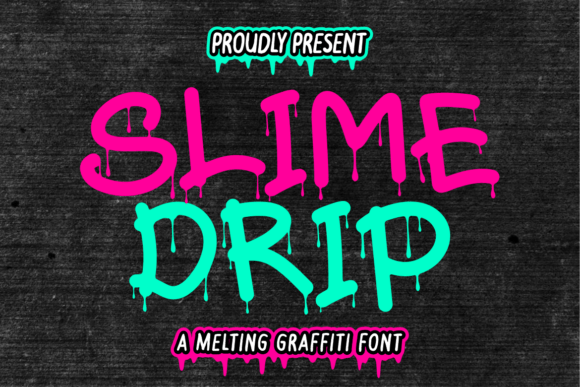
Introducing Slime Drip Font: The Ultimate Urban Graffiti Experience
Are you looking for a font that embodies the spirit of urban street art? Do you want to add a touch of youthful rebellion and creativity to your designs? Look no further than Slime Drip Font, a dynamic and contemporary monoline graffiti font that drips with style and attitude.
What is Slime Drip Font?
Slime Drip Font is a unique and innovative font that captures the essence of fresh graffiti paint slowly dripping down a vibrant urban wall. Each character in the font is designed to mimic the spontaneous flow and energetic style of street art, enhanced by its bold monoline outline that ensures readability and visual impact.
The font’s fluid, melting strokes give it a distinctive look that is sure to turn heads. Whether you’re designing a logo, poster, or sticker, Slime Drip Font is the perfect choice for urban-themed branding and eye-catching visual projects.
Key Features of Slime Drip Font
- Dynamic and Contemporary Design: Slime Drip Font boasts a modern and edgy design that is perfect for urban-themed projects.
- Monoline Graffiti Style: The font’s bold monoline outline ensures readability and visual impact, making it perfect for a variety of applications.
- Fluid and Melting Strokes: The font’s fluid, melting strokes give it a distinctive look that is sure to turn heads.
- Multilingual Support: Slime Drip Font comes with multilingual support, numerals, and a comprehensive character set, ensuring designers have maximum flexibility to produce distinct and visually appealing creations.
Applications of Slime Drip Font
Slime Drip Font is versatile enough to complement a variety of projects, including:
- Logos and Branding: The font’s bold and dynamic design makes it perfect for logos and branding materials that require a touch of urban style.
- Posters and Stickers: Slime Drip Font is ideal for posters and stickers that require a bold and eye-catching design.
- Magazine Covers: The font’s unique design makes it perfect for magazine covers that require a touch of urban flair.
- Event Invitations: Slime Drip Font is perfect for event invitations that require a bold and striking design.
- Streetwear Apparel Designs: The font’s urban style makes it perfect for streetwear apparel designs that require a touch of youthful rebellion.
- Business Identities: Slime Drip Font is ideal for businesses that require a bold and memorable identity.
Why Choose Slime Drip Font?
There are many reasons why Slime Drip Font stands out from the crowd. Here are just a few:
- Unique Design: Slime Drip Font boasts a unique and innovative design that is sure to turn heads.
- Versatility: The font is versatile enough to complement a variety of projects, from logos and branding to posters and stickers.
- Multilingual Support: Slime Drip Font comes with multilingual support, numerals, and a comprehensive character set, ensuring designers have maximum flexibility to produce distinct and visually appealing creations.
- Urban Style: The font’s urban style makes it perfect for projects that require a touch of youthful rebellion and creativity.
Tips for Using Slime Drip Font
Here are a few tips for using Slime Drip Font in your designs:
- Use it Boldly: Slime Drip Font is designed to make a statement, so don’t be afraid to use it boldly in your designs.
- Experiment with Colors: The font’s urban style lends itself well to bright and bold colors, so don’t be afraid to experiment.
- Pair it with Other Fonts: Slime Drip Font can be paired with other fonts to create a unique and visually appealing design.
In conclusion, Slime Drip Font is a dynamic and contemporary monoline graffiti font that drips with style and attitude. Its unique design, versatility, and multilingual support make it the perfect choice for urban-themed branding and eye-catching visual projects.